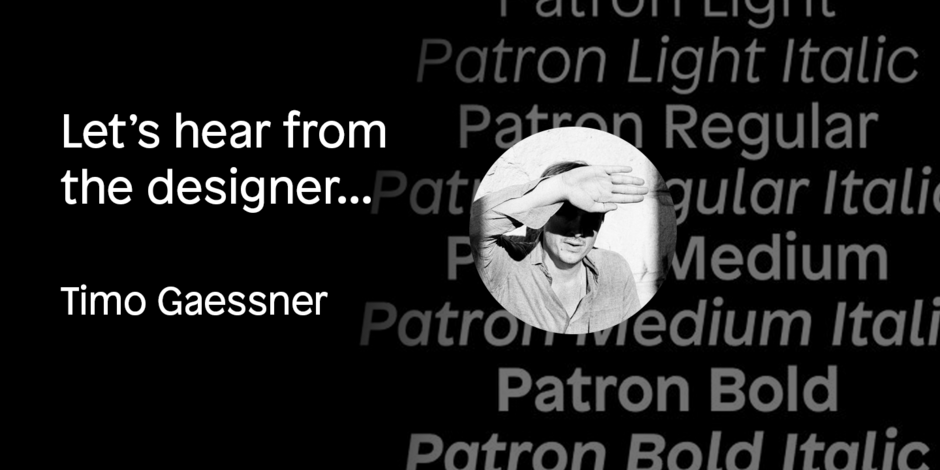
#05 Patron™ by Milieu Grotesque
Q1: Where did the idea for the typeface come from? Did you set out to address a specific use or suite of the application? Was this a design you’d had in mind for a while?
Ans: Patron is a sans serif influenced by two dissimilar type designers, Günther Gerhard Lange and Roger Excoffon. Patron unites their contradictory approaches to create an expressive, yet versatile grotesk. As a result, Patron is characterised by a generous x-height, flared stroke endings and an unconventional shift in balance, inspired by Excoffon and a rigorously precise modern interpretation, for which Lange was most famous for.
Q2: What should graphic communicators know about the typeface, or how will the family of fonts help them create better designs?
Ans: Patron is designed to play a vital and prominent role in any kind of environment / communication. Most importantly are they conceived to provide a distinct visual language that (hopefully) inspires it to use the fonts in a bold and innovative way. And finally, the meticulous and up-to-date execution, together with a large range of styles and weights allows a wide range of applications, from analog to digital, large to small etc.